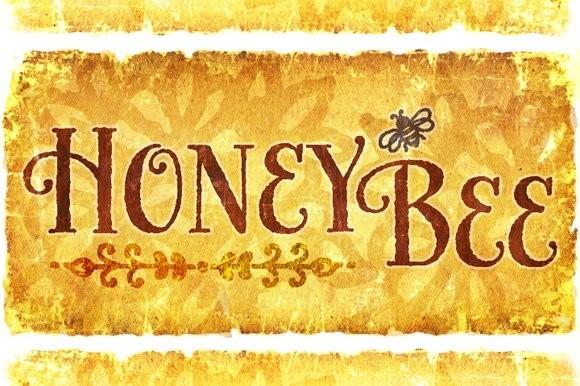
HoneyBee Font Description
HoneyBee is a handwritten all-caps face that helps you make irresistibly sweet layouts on food packaging, fantasy games, or kid stuff. It includes three sets of full-size capitals and two sets of lowercase capitals. Mix and match curlicued swash forms with titling forms to create headlines, titles, and wordmarks. Includes 20 ornaments to complement your designs.